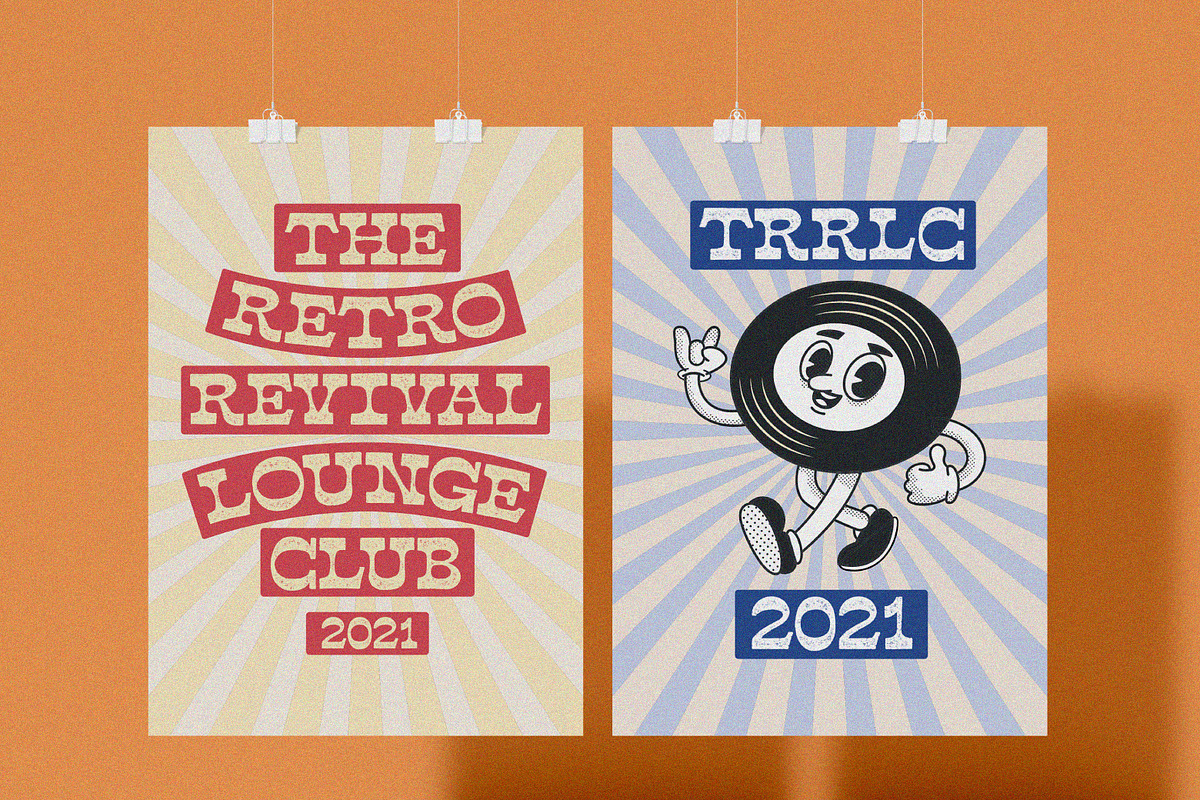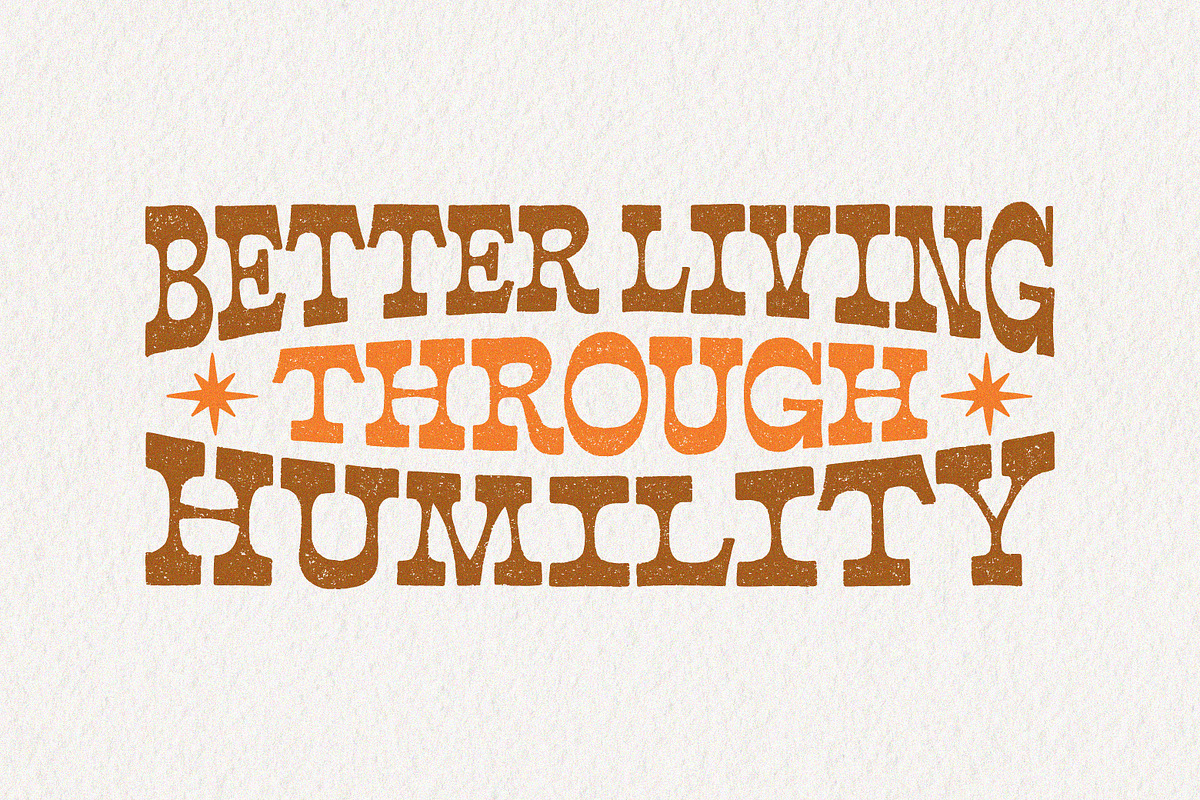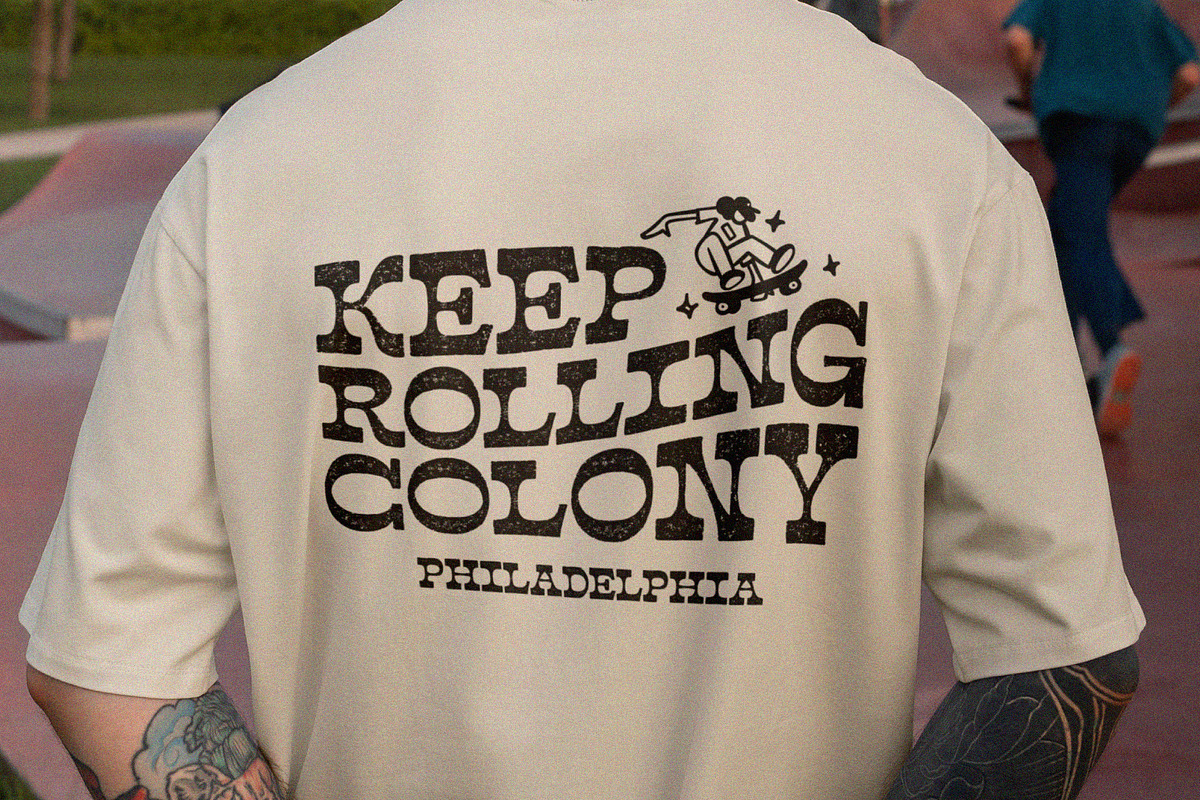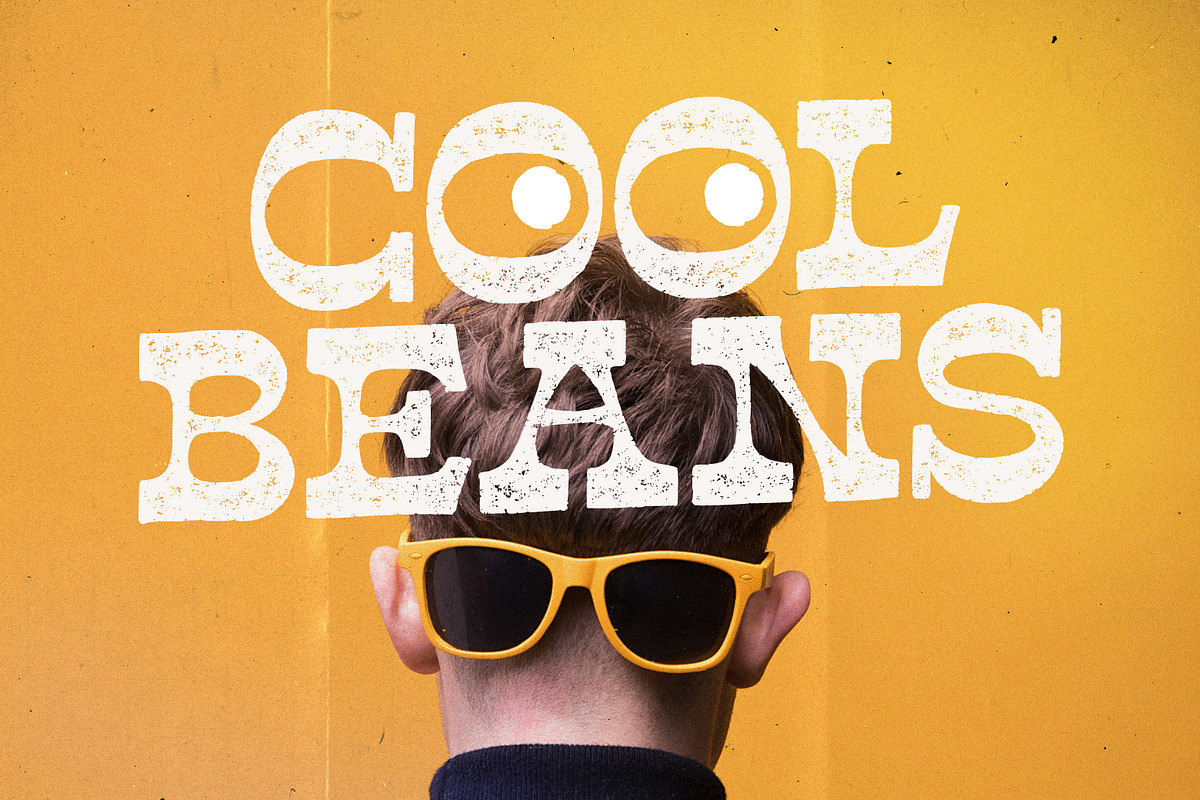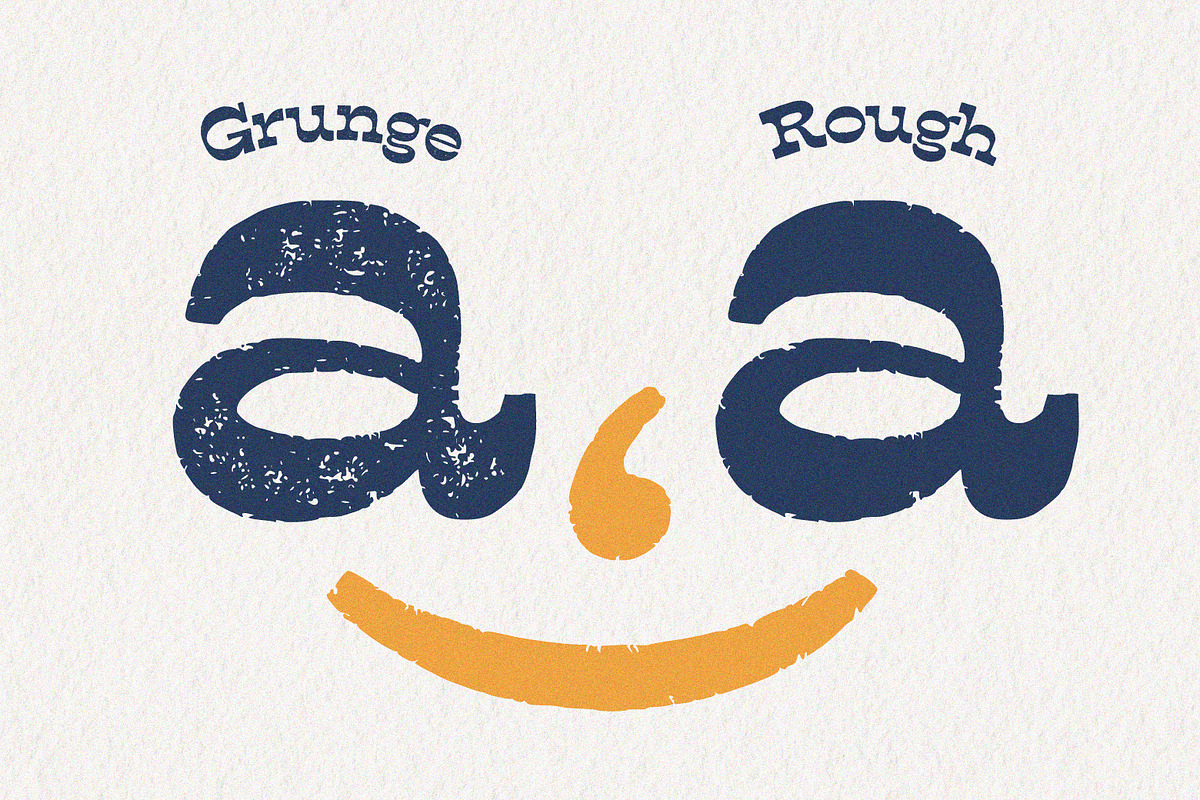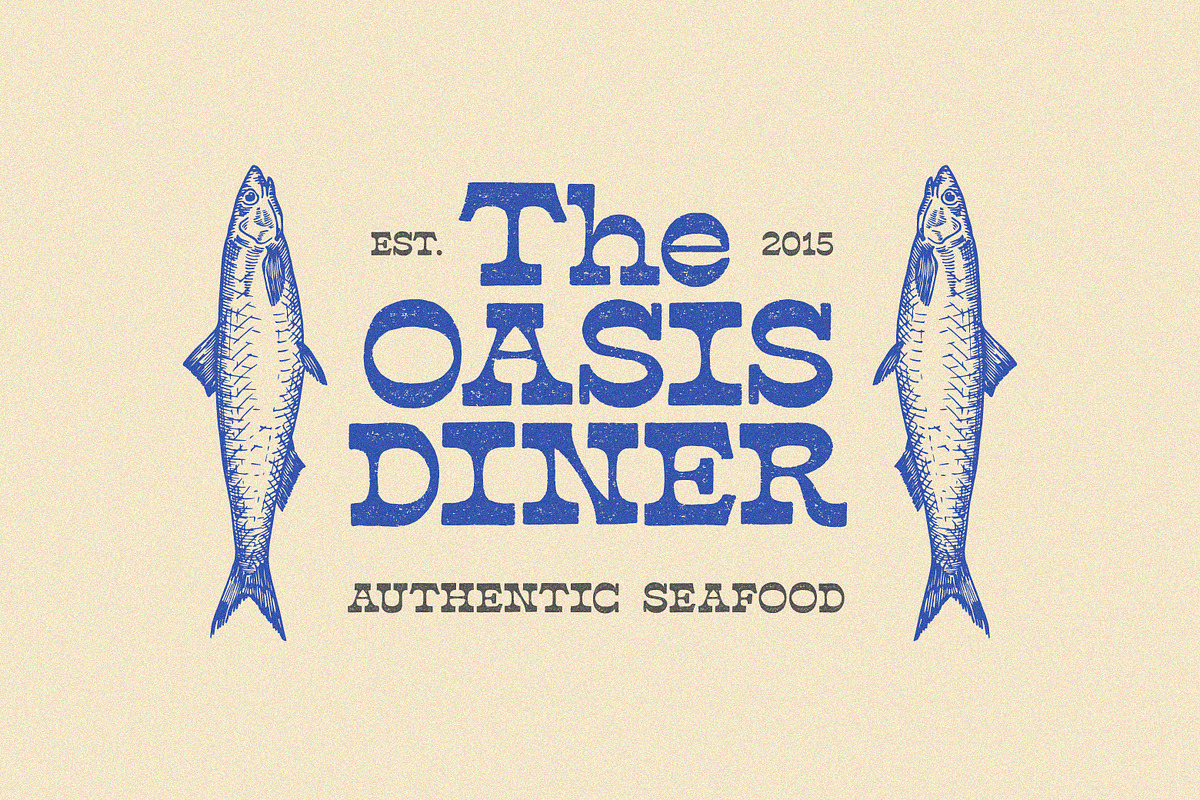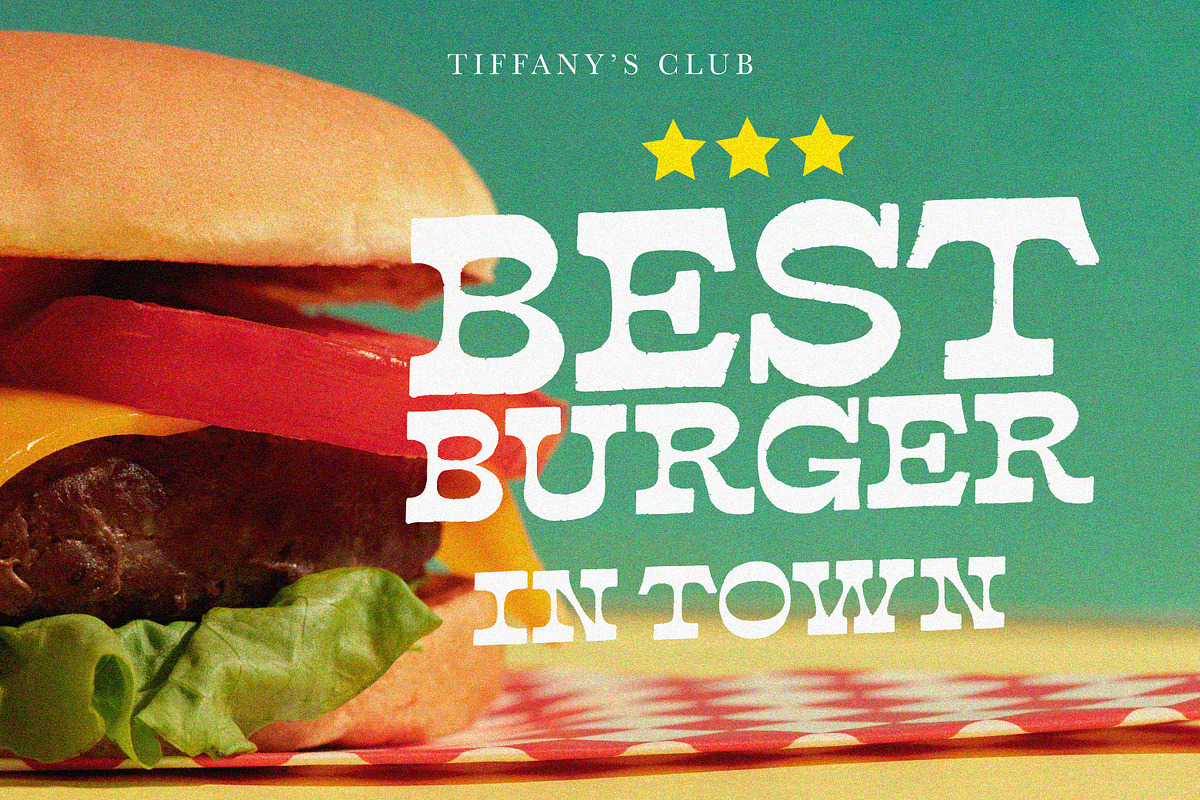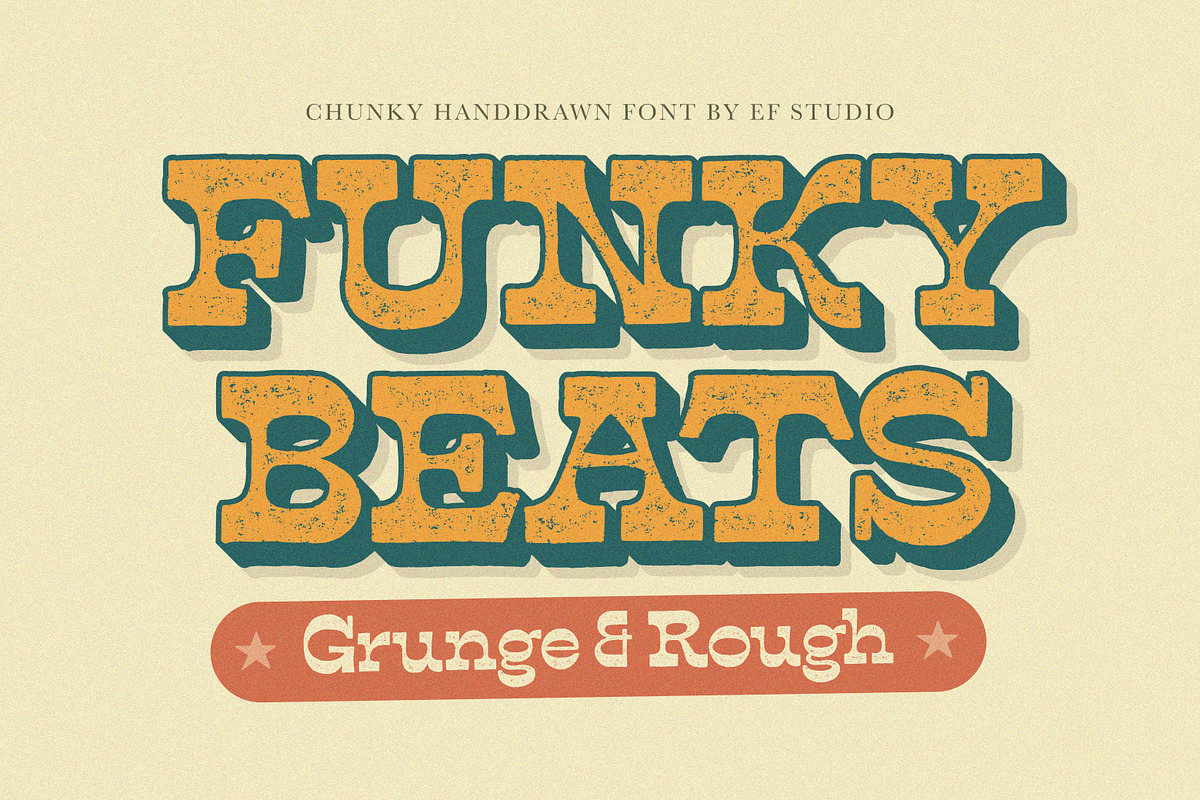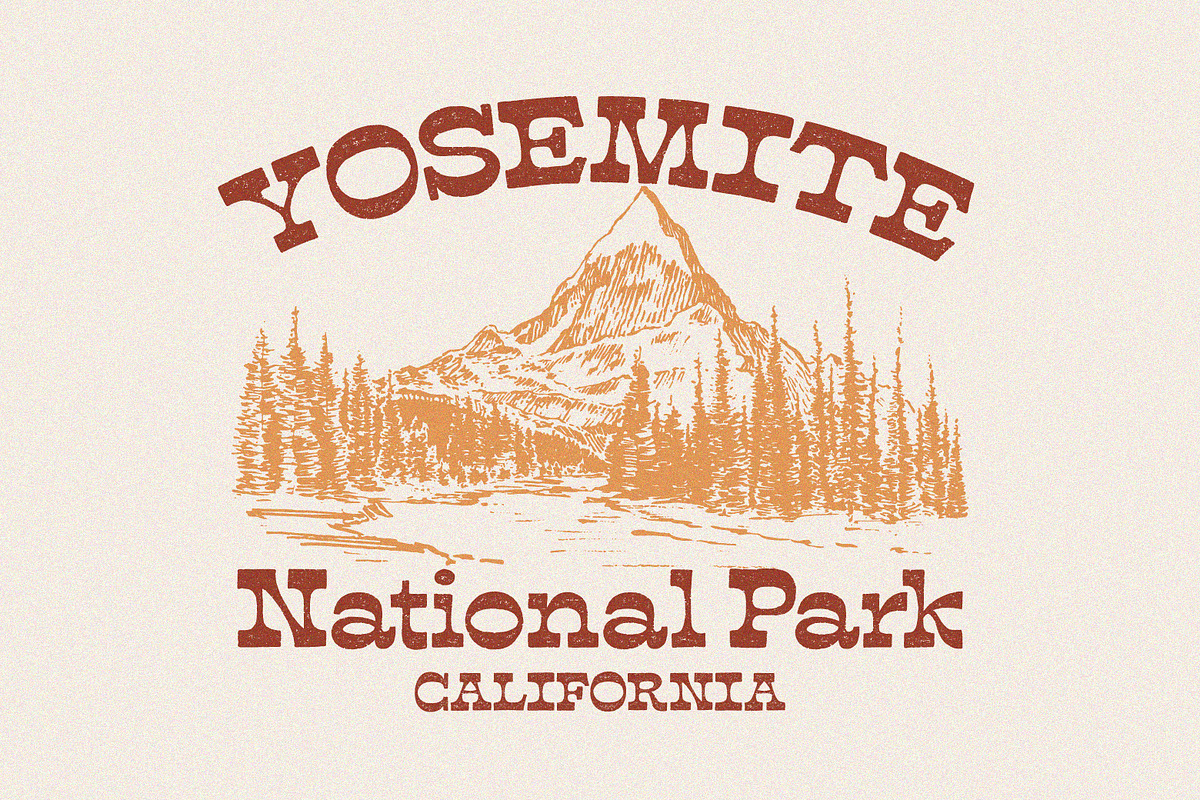
Funky Beats | Chunky Hand Drawn Font
Funky Beats is chunky hand drawn font. Available in 2 styles, Grunge and Rough. Inspired by urban charm with grunge texture featuring reverse contrast, perfect for projects seeking a gritty and unconventional vibe. Such as logo, logotype, packaging, branding, editorial, and so on.